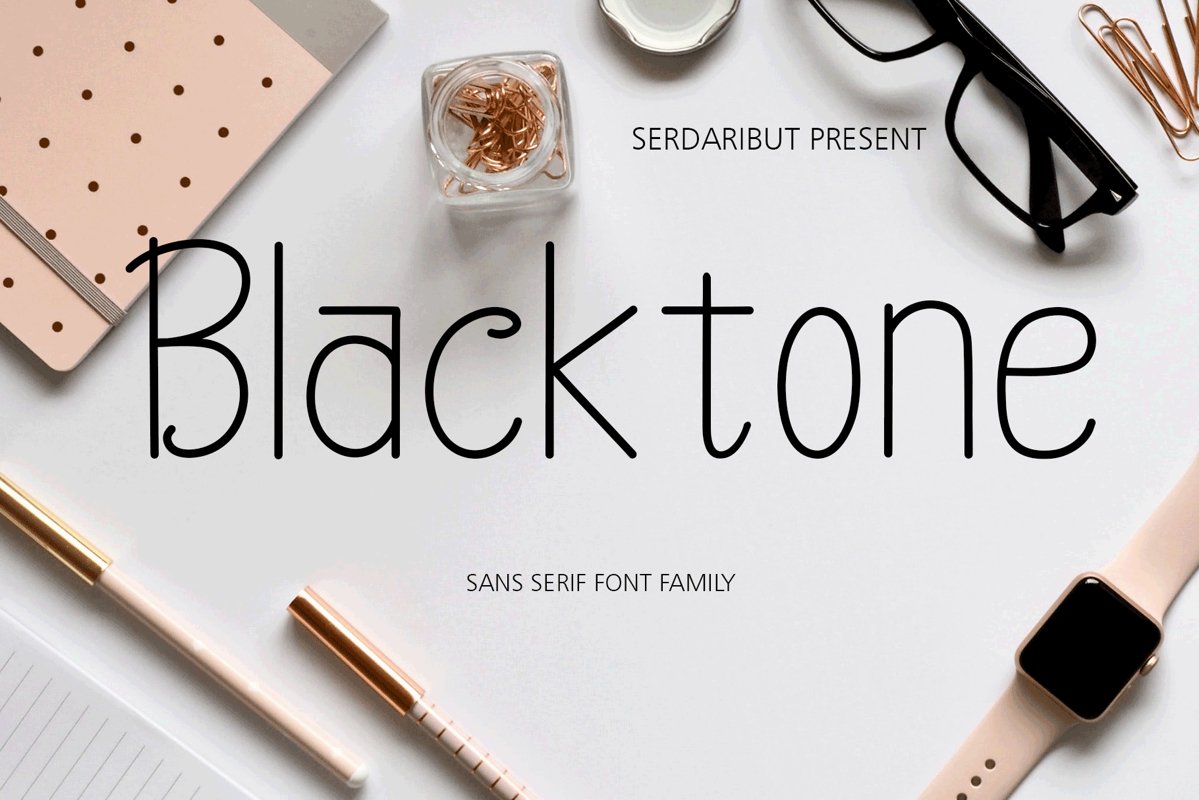
Blacktone Family
Blacktone Line
Blacktone Bold II
Blacktone Bold
Blacktone line II
Blacktone Family - clean, minimalistic and awesome characters! With four different letters, perfect for magazine layout, invitations, headlines, or even other artwork.